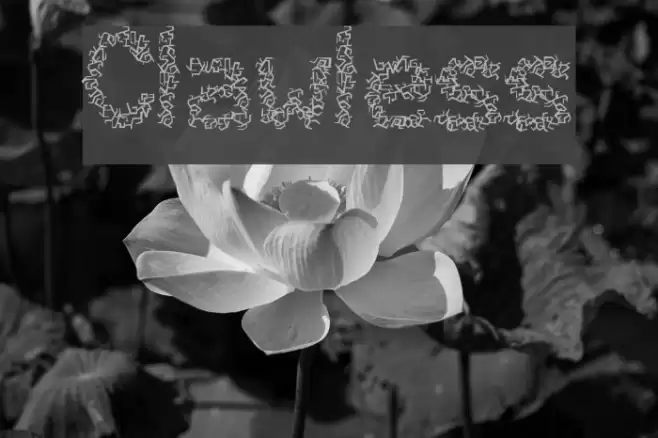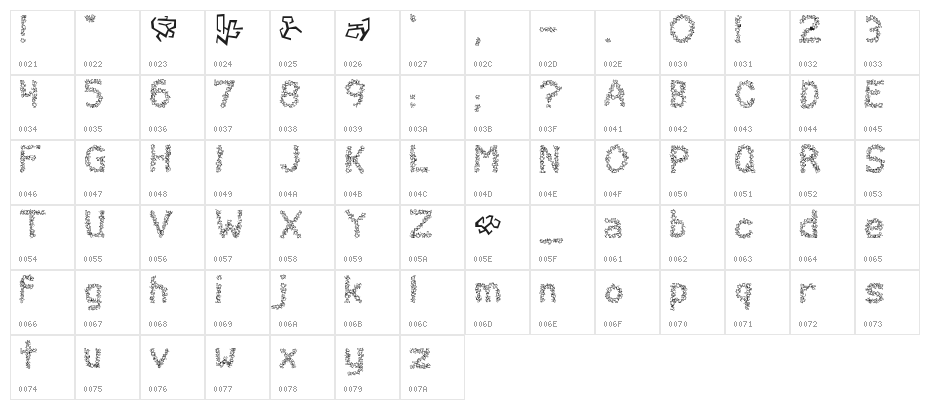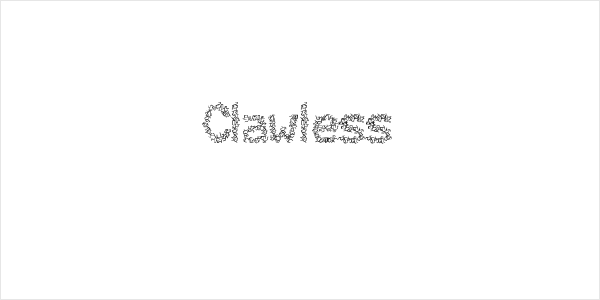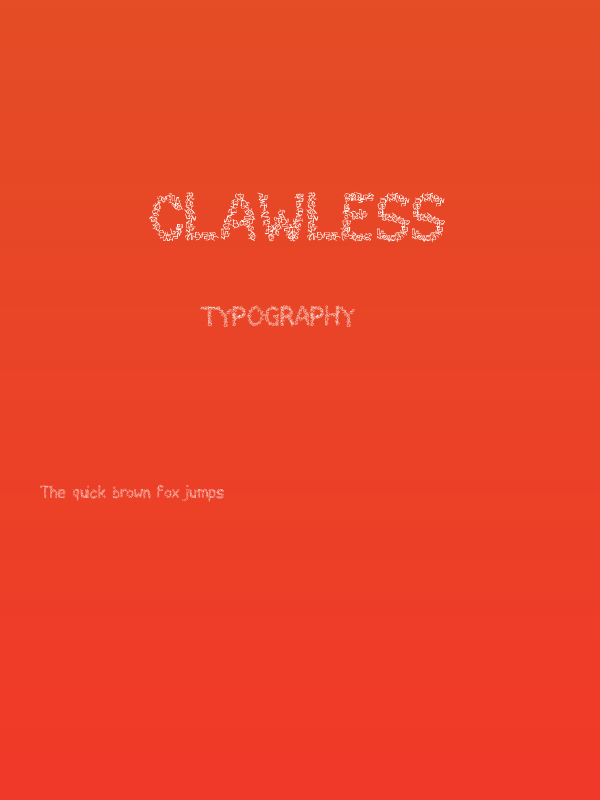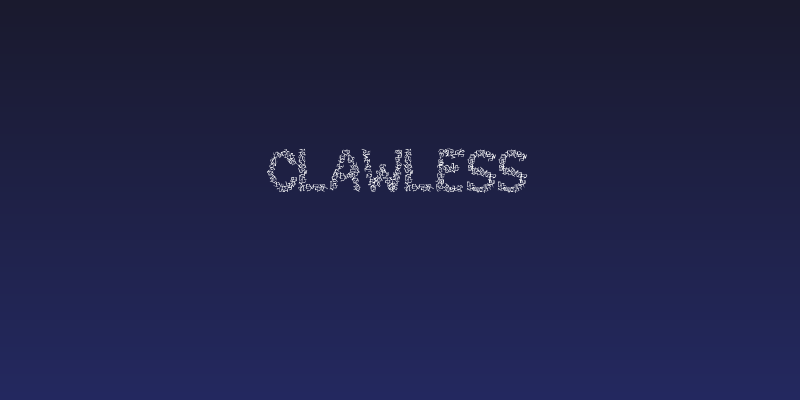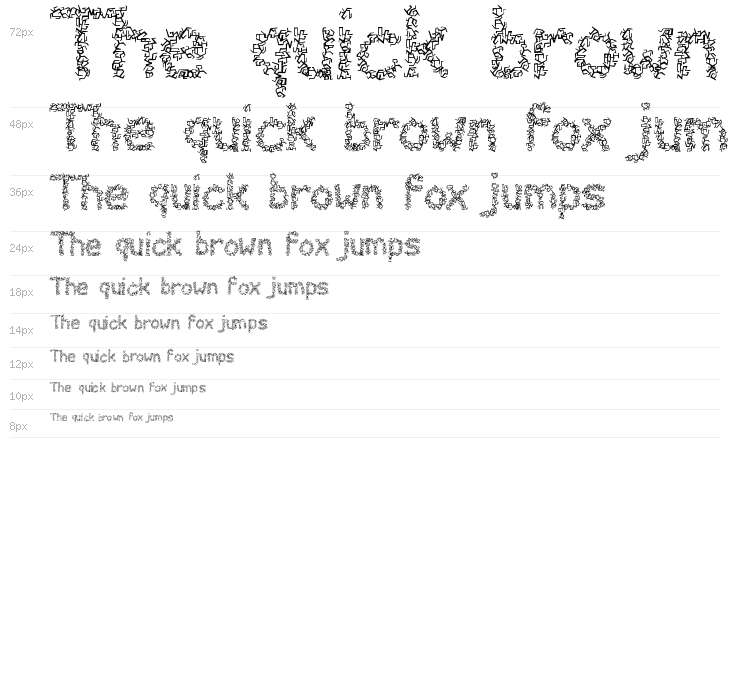
Clawless Font
Clawless Description
This font features a highly decorative and abstract design, with each character composed of intricate, claw-like shapes that intertwine to form the letters and numbers. The overall appearance is chaotic yet artistic, creating a sense of movement and complexity. The characters are bold and eye-catching, making them suitable for projects that require a unique and striking visual impact. The font's style is reminiscent of abstract art, with a playful and creative twist that sets it apart from traditional typefaces.
A decorative, abstract font with intricate, claw-like shapes forming each character from Decorative fonts.
- Proposed Projects: Ideal for artistic posters, album covers, creative branding, and any project seeking a bold, unconventional look.
- Use Case: Logos, Posters, Artistic Projects